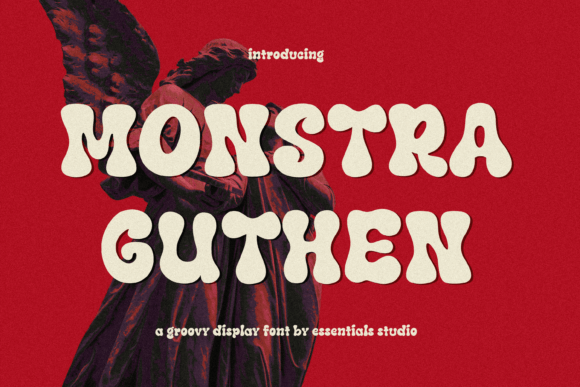
Introducing Monstra Guthen Font, the perfect choice for anyone looking for the best font for poster print! This modern groovy display font is brought to you by Essentials Studio, a trusted name in the font design industry.
Monstra Guthen Font is more than just a typeface. It's a bold statement that will make your message stand out and grab the attention of your target audience. Whether you're creating product packaging, branding projects, magazines, or social media posts, this font will add a touch of sophistication to your design.
With its unique style and creative flair, Monstra Guthen Font is also perfect for weddings and other special occasions. Use it to express your words above any background, and watch as your message takes on a life of its own.
But what makes Monstra Guthen Font truly special is its versatility. Whether you're designing a poster, a website, or a book cover, this font is up to the task. It's perfect for headlines, titles, and any text that needs to make a bold impact.